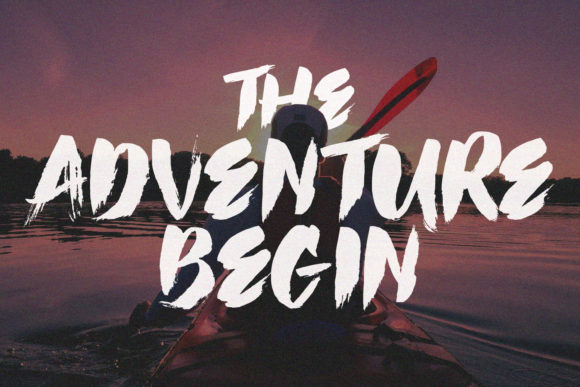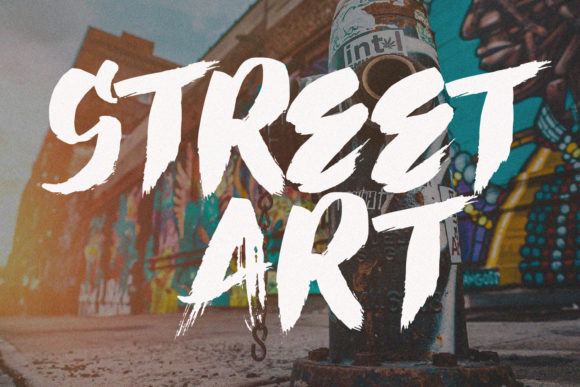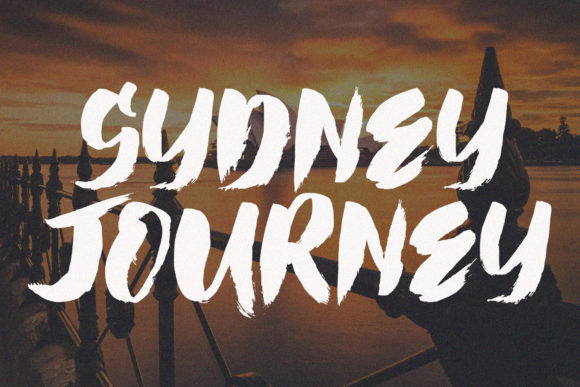
Introduction to Hai Brush Font
Hai Brush features natural brush strokes with a contemporary feel.
It will turn any design idea into a true standout .
Key Features of Hai Brush Font
Why Choose Hai Brush Font?
Hai Brush Font offers exceptional quality and versatility, making it a valuable addition to your design toolkit. Whether you’re creating for personal projects or commercial use, Hai Brush Font delivers professional results.